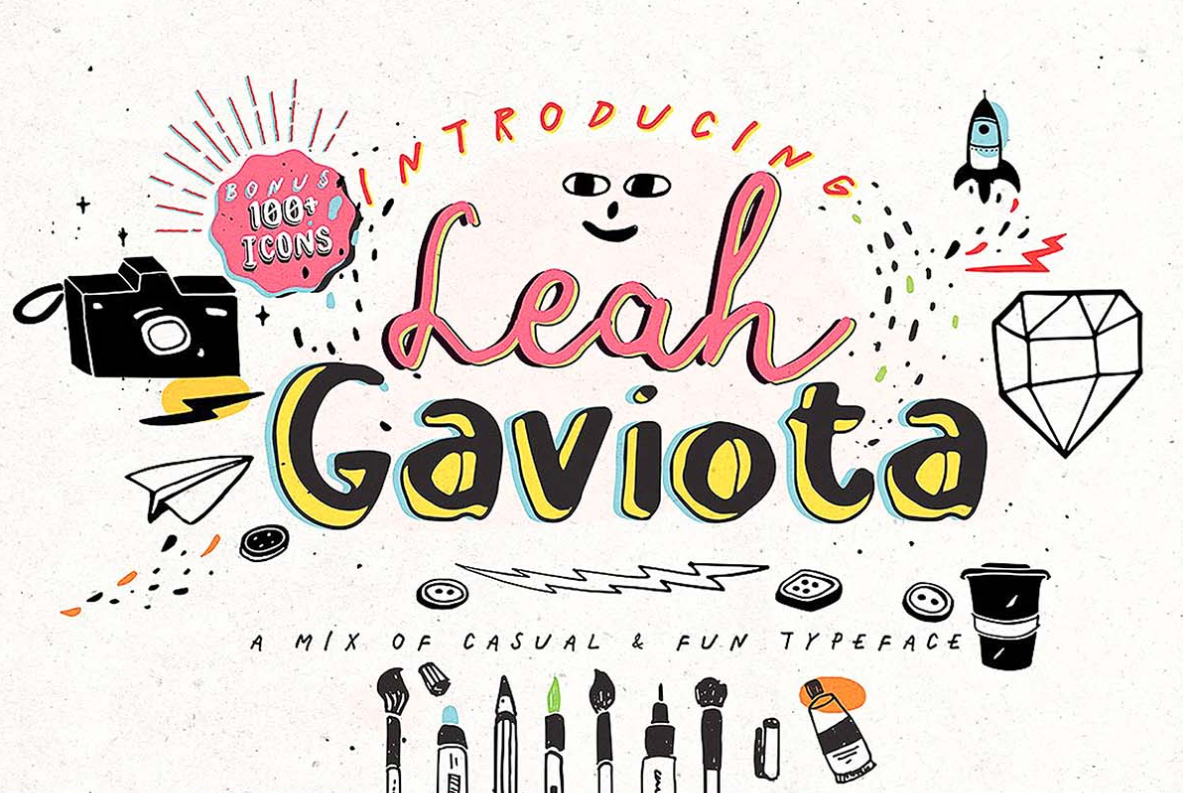
2.2. Leah Gaviota Hand Lettered
Leah Gaviota Hand Lettered is a versatile font family that combines bold, sans - serif, and script for a unique style.
Highlights:
Includes many weight variations: from light to bold.
Sans-serif typeface with clean blocks, soft, curvy script.
Flexible design, easy to mix & match.
Suggested applications:
Brand identity design.
Website title, advertising slogan.
Support for OpenType features: ligatures, stylistic alternates.
Suggested applications:
Design social media posts, Instagram Stories.
Create quote images for Facebook, Pinterest.
2.4. Beatrix Signature
Beatrix Signature is a handwritten font focused on personalization, with a variety of character lengths and styles.
Highlights:
Each glyph has short and long variations, allowing the Designer flexibility.
The handwriting is soft but still maintains a clear structure.
Suitable for electronic signatures or product titles.
Suggested applications:
Cosmetic packaging, perfume bottles.
High-end clothing and handbag labels.
2.5. Gineva Script
Gineva Script is a handwritten font that combines European calligraphy, ideal for highlighting headlines.
Highlights:
The lines are elegant, with a contrast between thin and bold lines.
Soft letter links create a graceful flow effect.
Poster title, advertising banner.
Magazine covers, event brochures.
2.6. Amstenia Typeface
Amstenia Typeface wins hearts with its simple, familiar brush style.
Highlights:
The brush strokes are slightly rough, each character gives a "handmade" feel.
Thickness changes naturally, creating high realism.
Full support for Latin characters and Vietnamese accents.
Suggested applications: